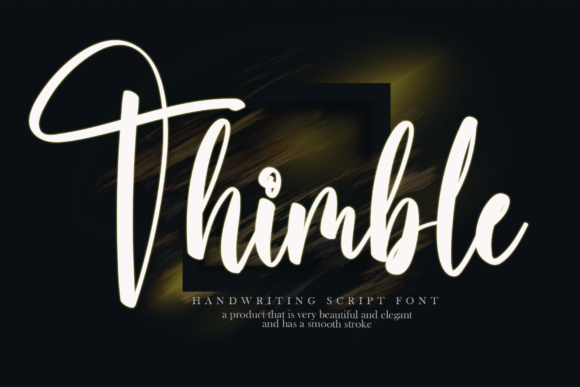
Embark on a journey of impeccable elegance with Thimble, the striking script font meticulously crafted by Creatype Designer. Inspired by the enduring allure of classic calligraphy, Thimble exudes a timeless sophistication that elevates any project with its inherent grace and charm.
Step into a world of seamless harmony, where Thimble's characters dance across the page with effortless balance and captivating variation. Each letterform is a testament to the designer's artistry, meticulously shaped to enhance the beauty of your words. Experience the joy of effortless creativity as Thimble effortlessly elevates your projects to new heights.
Unleash your imagination and explore the endless possibilities that await with Thimble. Whether you're crafting captivating brochures that demand attention or designing enchanting invitations that ignite hearts, Thimble's versatile nature ensures a breathtaking impact every time. This font is your key to unlocking a world of elegance and distinction, leaving an unforgettable impression on all who encounter it.
With Thimble as your creative companion, you'll discover a font that effortlessly enhances the beauty of your projects. Its graceful curves and confident strokes command attention, while its timeless essence ensures enduring relevance. Embrace the transformative power of Thimble and watch as your words dance with newfound grace and elegance.
Immerse yourself in the world of Thimble, a script font that embodies the essence of timeless beauty and contemporary allure. Let your creativity soar as you witness the harmonious interplay of balance and variation, where each character exudes a distinct charm. Discover the joy of effortless elegance and elevate your projects to new heights with Thimble, the font that captures hearts and ignites imaginations.